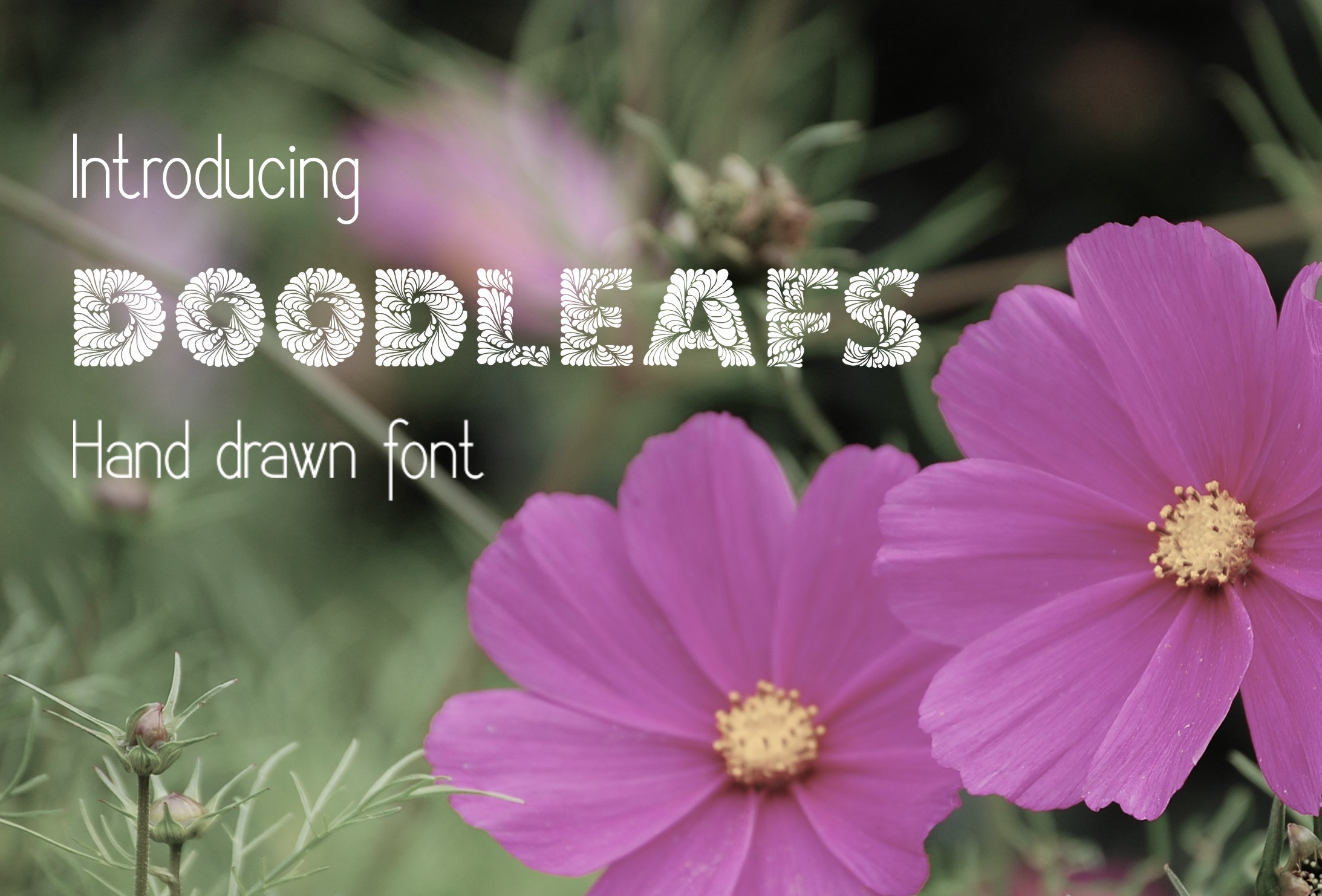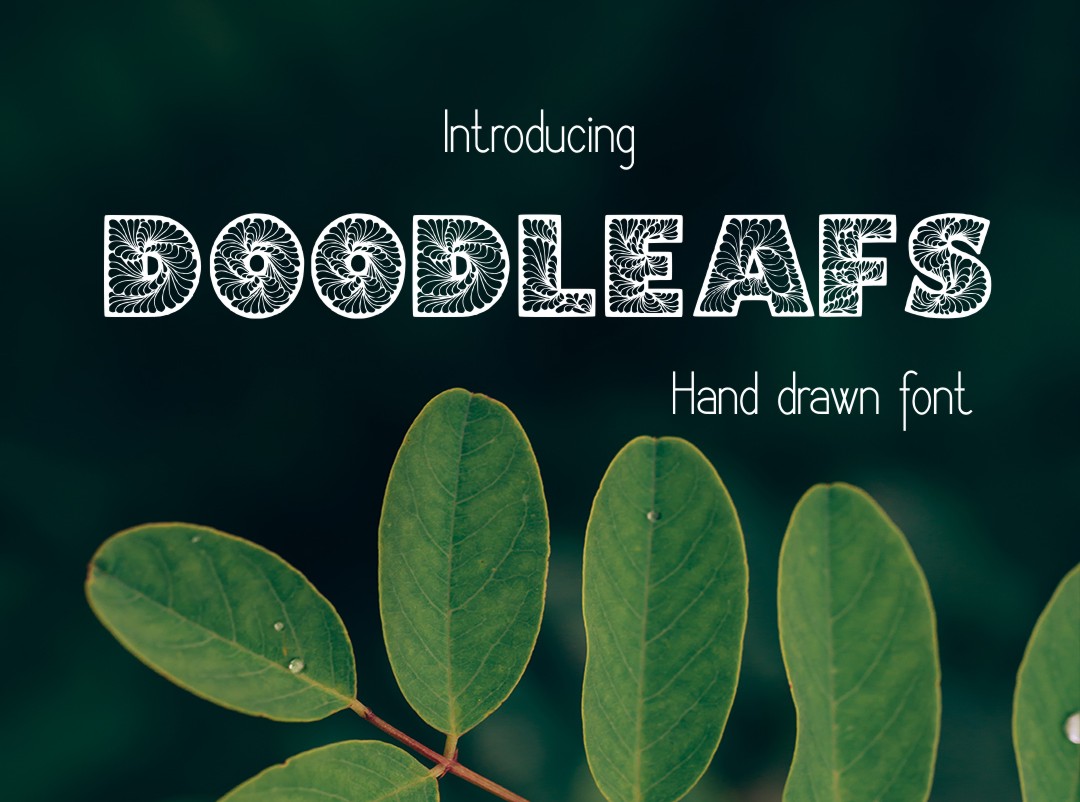
Introduction to Doodleafs Font
As a designer, there’s nothing quite like the rush of inspiration that comes with a blank page and a pencil in hand. It’s a feeling that can strike at any moment, whether you’re brainstorming ideas for a new project or simply doodling in the margins of a notebook. For many of us, this creative spark is what drives us to bring our ideas to life, and for that, we need the right tools.
Enter the Doodleafs Font by Eva Barabasne Olasz – a handdrawn masterpiece that’s about to become your new go-to design resource. With its high-quality, transparent background, this font is perfect for adding a touch of whimsy to any creative project. And the best part? It’s available for free download, making it a valuable addition to any designer’s toolkit.
Key Features of Doodleafs Font
- High-quality design resource suitable for various creative projects, including digital art and graphic design.
- Unique doodle-style design with intricate details, making it perfect for adding a playful touch to your work.
- Comes with a transparent background, allowing for easy layering and customization in your design projects.
- Designed to be scalable, allowing you to resize the font without compromising its quality or clarity.
Honest Review: Doodleafs Font
As a designer, I’m always on the lookout for high-quality design resources to elevate my creative projects. The Doodleafs Font is one such gem that caught my attention. I was thrilled to find it available for free download, making it a great addition to my design arsenal.
What works well: ✨ The Doodleafs Font is incredibly versatile, suitable for a wide range of creative projects, from branding to digital design. Its playful, hand-drawn style adds a unique touch to any design, making it stand out from the crowd. The font is also highly customizable, allowing me to adjust the opacity and color to suit my design needs.
What doesn’t work so well: ⚠️ While the Doodleafs Font is a high-quality design resource, I found that it can be a bit overwhelming when used in large quantities. The intricate details and playful style can make it difficult to read in certain contexts, particularly when used in body text.
Overall impression: I’m thoroughly impressed with the Doodleafs Font. Its transparent background and creative style make it a great addition to any design project. While it may have some limitations, I believe it’s a valuable resource that can add a unique touch to any design. With its free download and high-quality design, I highly recommend giving it a try!
- Highly customizable
- Suitable for a wide range of creative projects
- Translucent background
- Unique, hand-drawn style
Tips for Getting the Most Out of Doodleafs Font
Experiment with different font sizes and styles to achieve the desired look. Use the Doodleafs Font in combination with other design elements to create a cohesive and visually appealing design. Don’t be afraid to try new things and push the boundaries of what’s possible with this versatile font.
Common Use Cases for Doodleafs Font
The Doodleafs Font is perfect for a variety of creative projects, including branding, marketing materials, and social media graphics. Its unique design and high-quality appearance make it an ideal choice for designers looking to add a touch of elegance and sophistication to their work.
Yes, the Doodleafs Font supports transparent backgrounds, allowing you to create visually appealing designs with a seamless integration of text and graphics. This feature is particularly useful for designs that require a high level of customization and creativity.